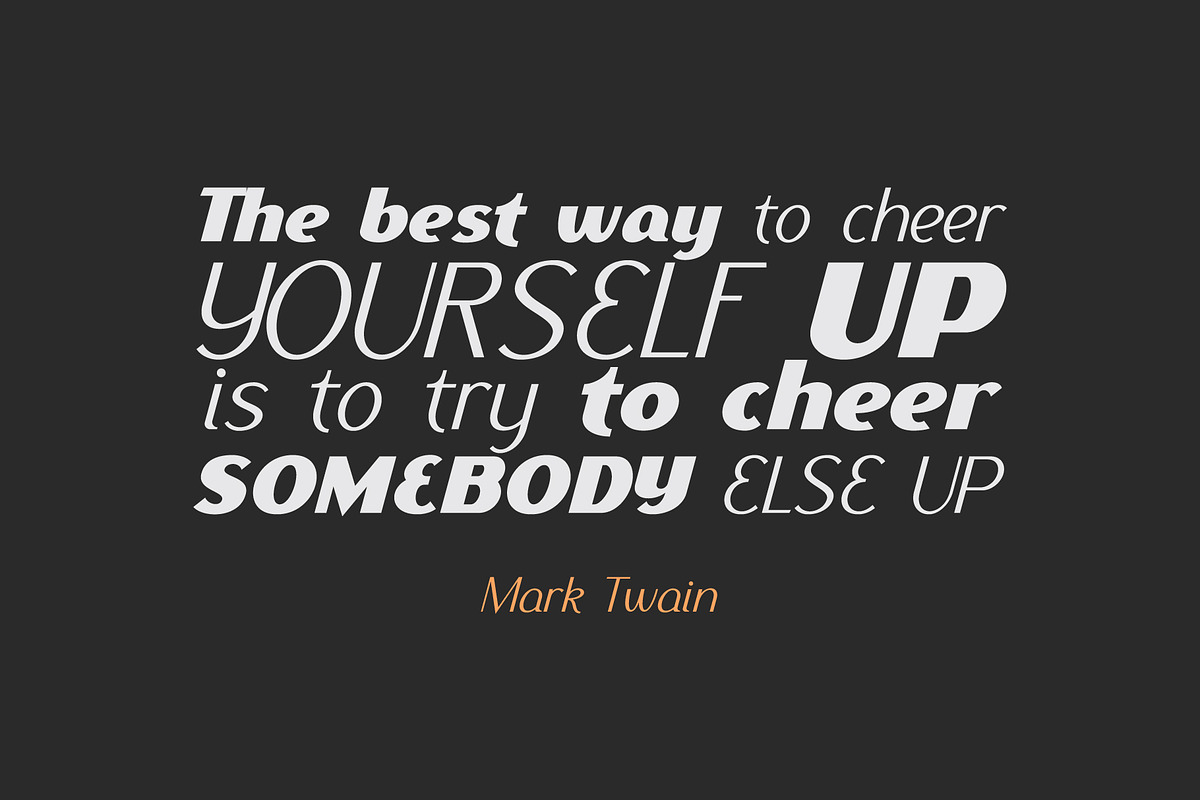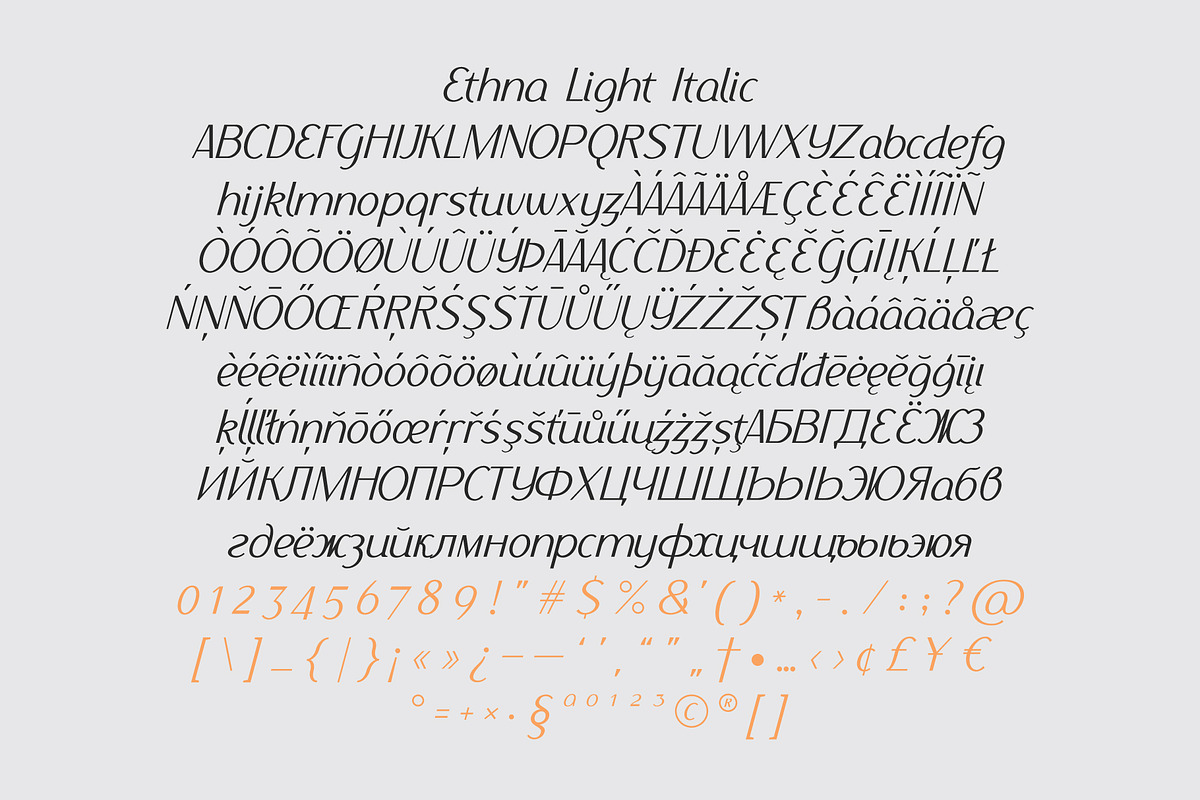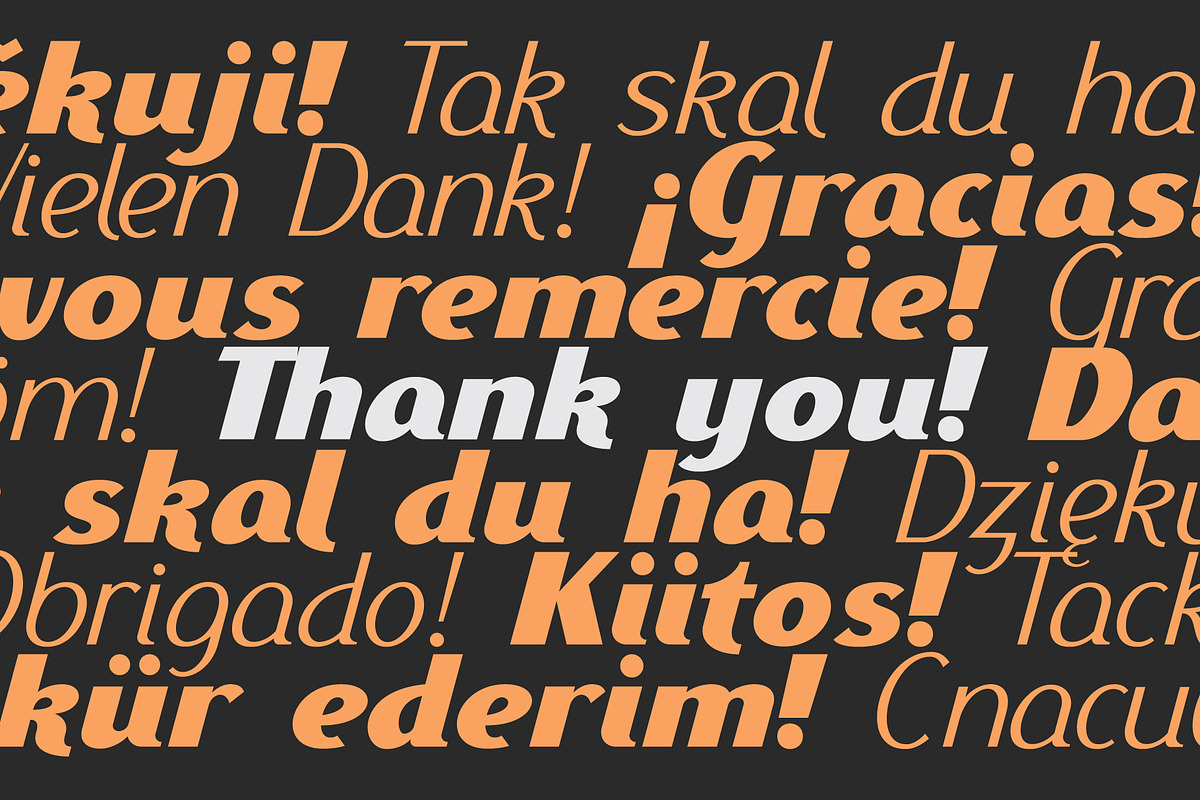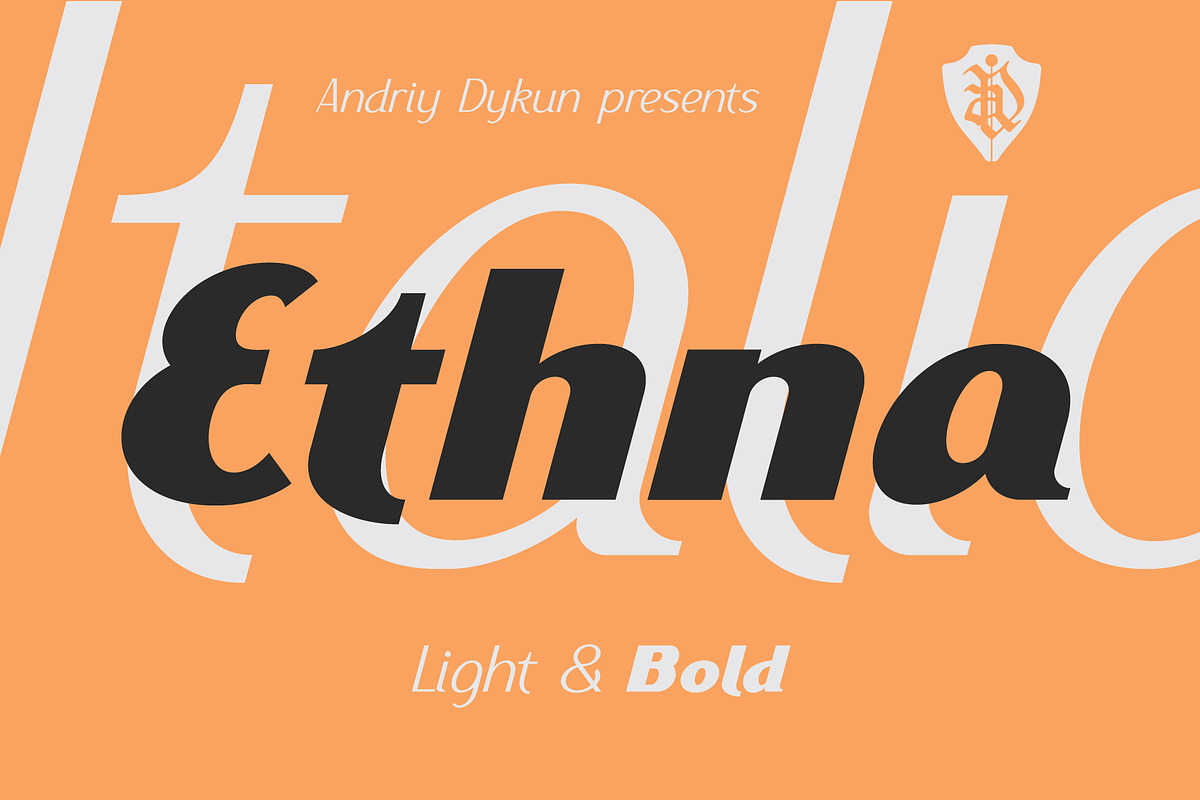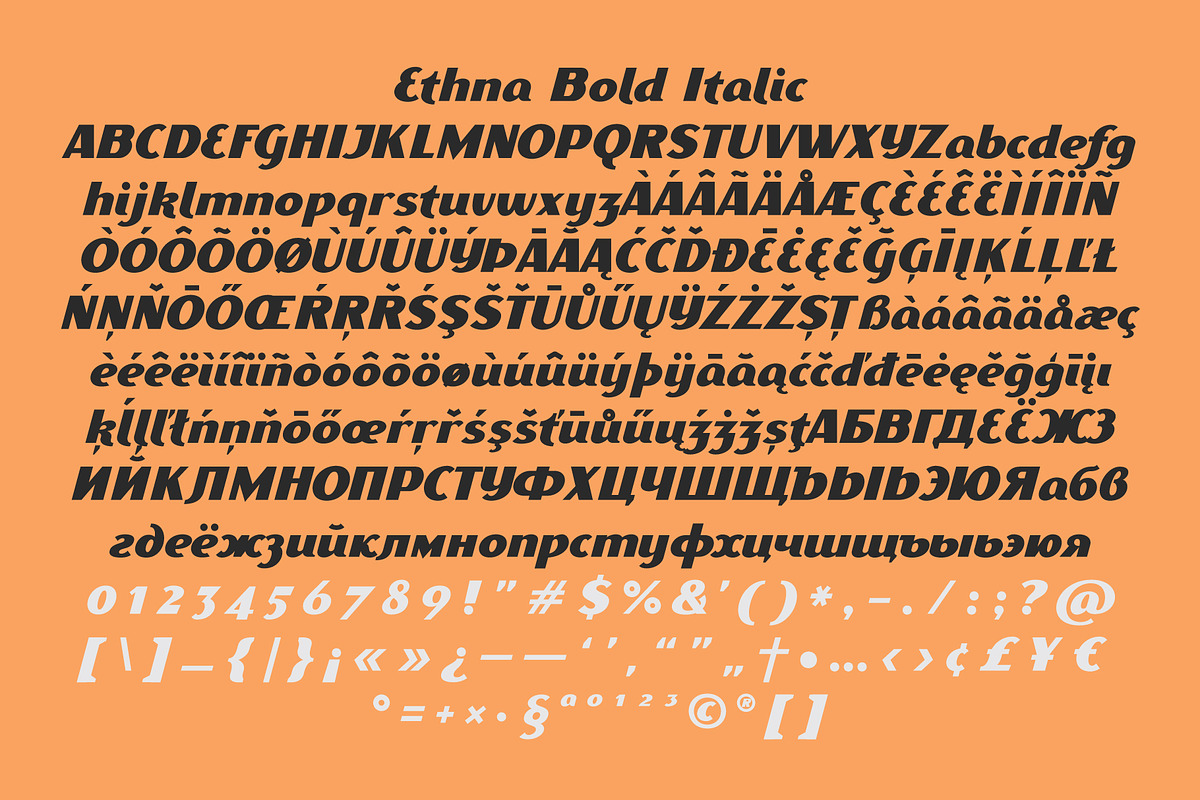
Ethna Italic
Ethna is a fresh new sans-serif font family.
Pack include two weights - Bold Italic and Light Italic
It perfectly represents modern and vintage esthetics. The font includes uppercase and smallcase letters and multilingual support. Font looks amazing as alone words and as full text blocks. Also it good for bright captions and unforgettable logos.
Language support more than 30 languages: Afrikaans, Basque, Bosnian, Catalan, Croatian, Czech, Danish, Dutch, English, Estonian, Filipino, Finnish, French, Galician, German, Indonesian, Irish, Italian, Latvian, Lithuanian, Malay, Norwegian Bokmal, Portuguese, Romanian, Russian, Slovak, Slovenian, Spanish, Swahili, Swedish, Zulu etc.